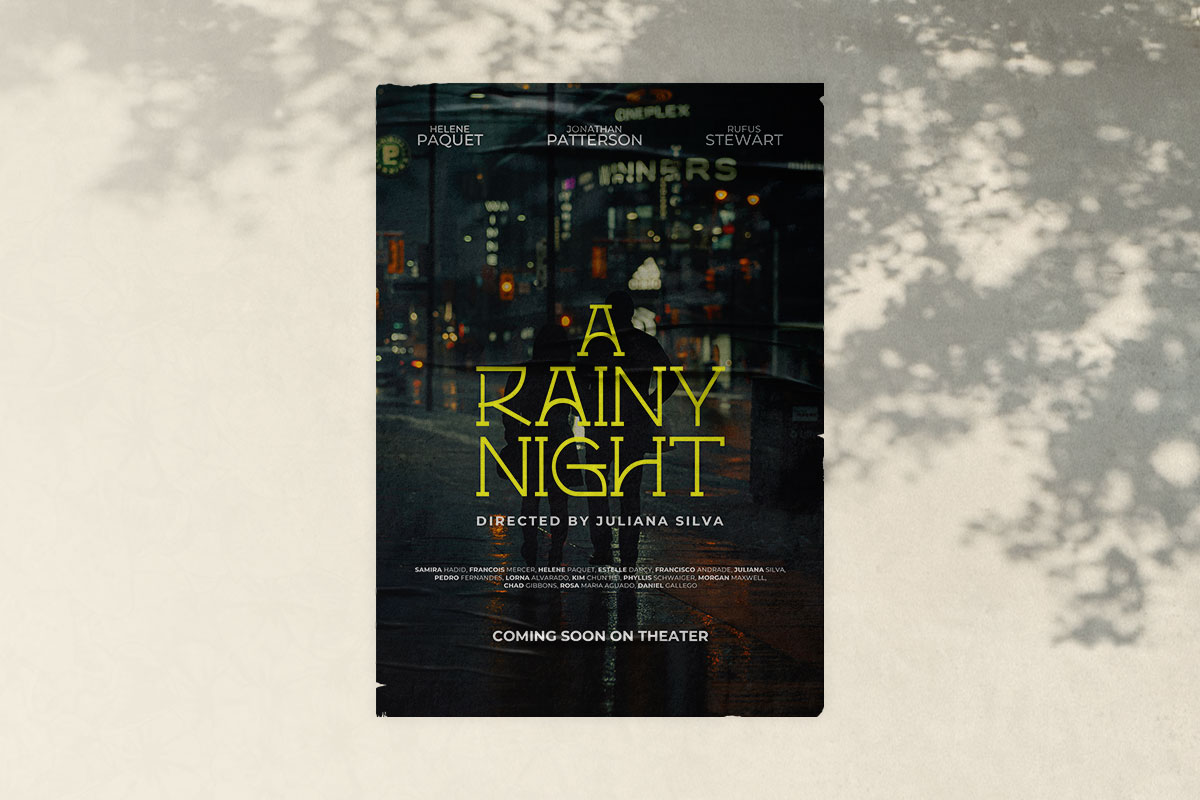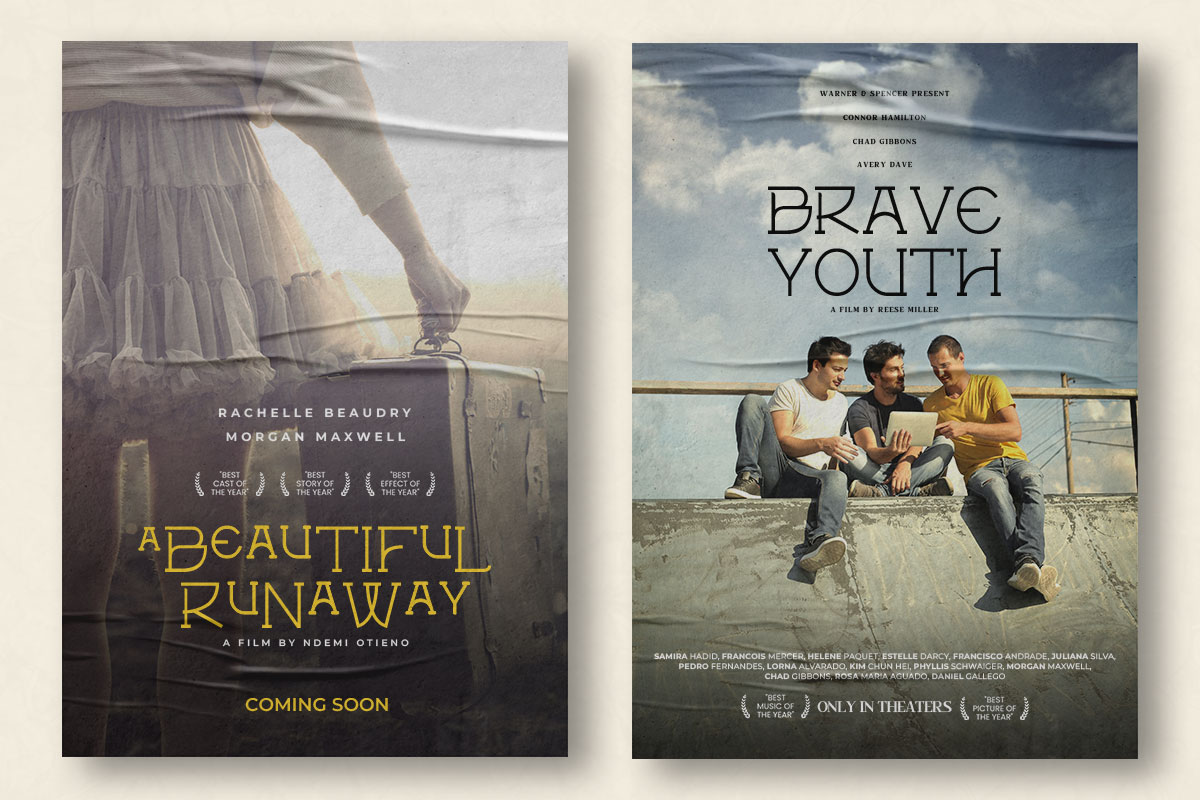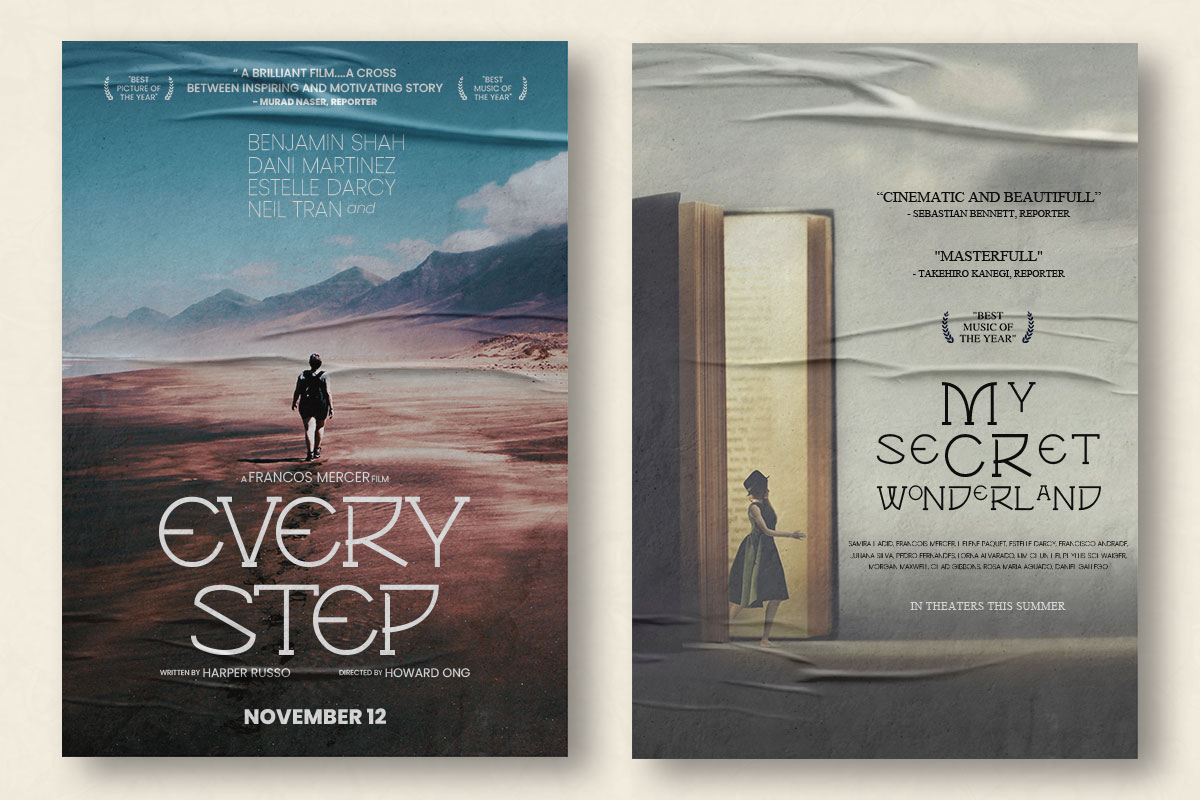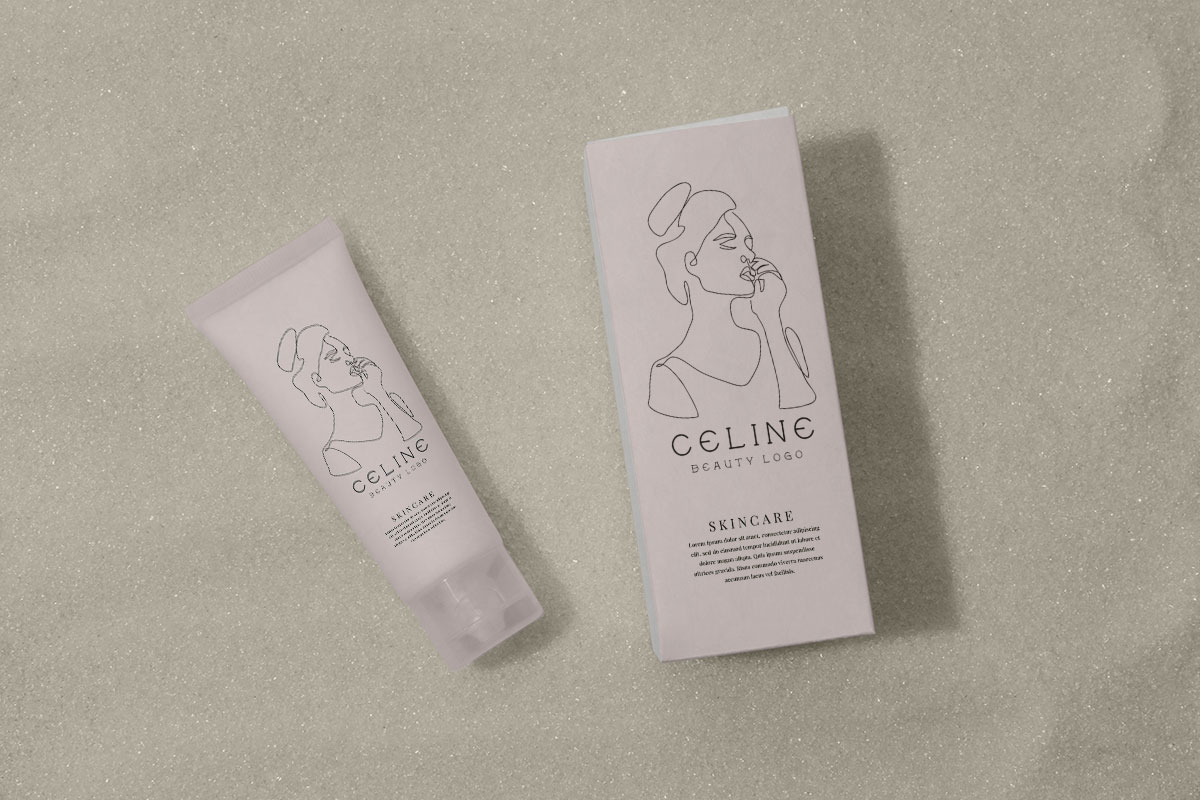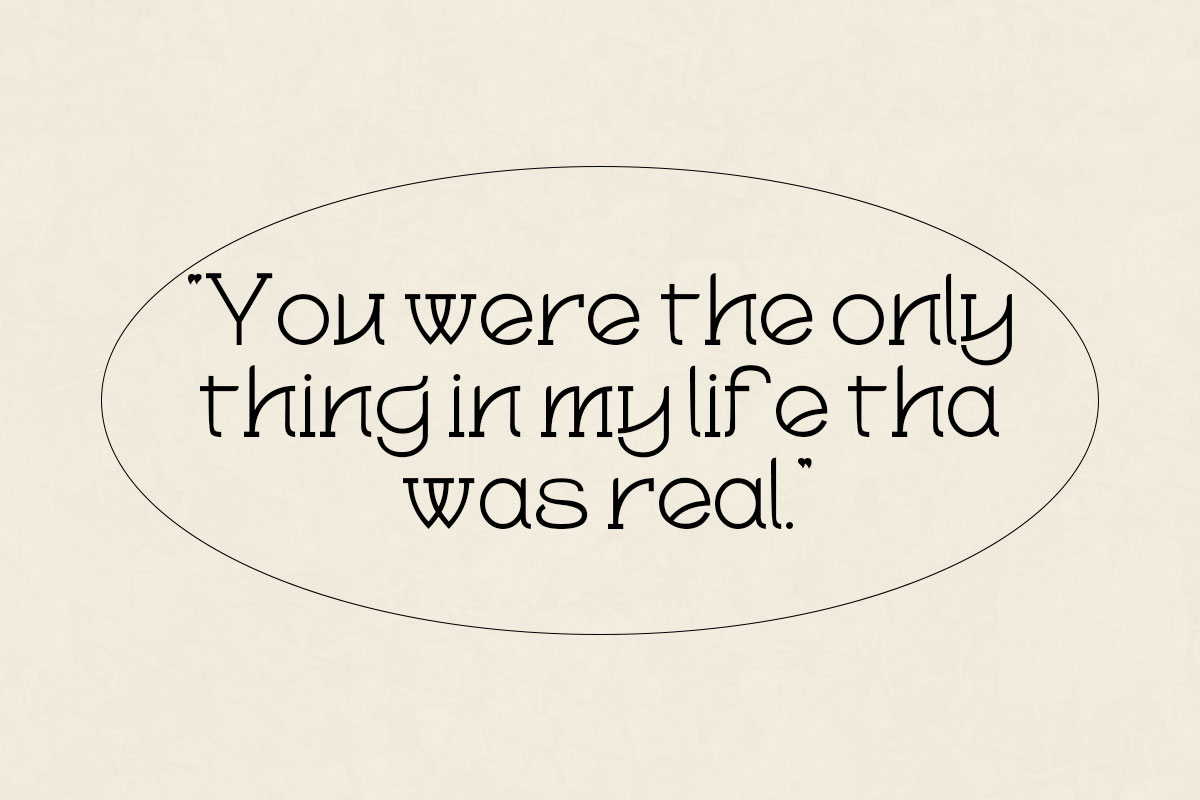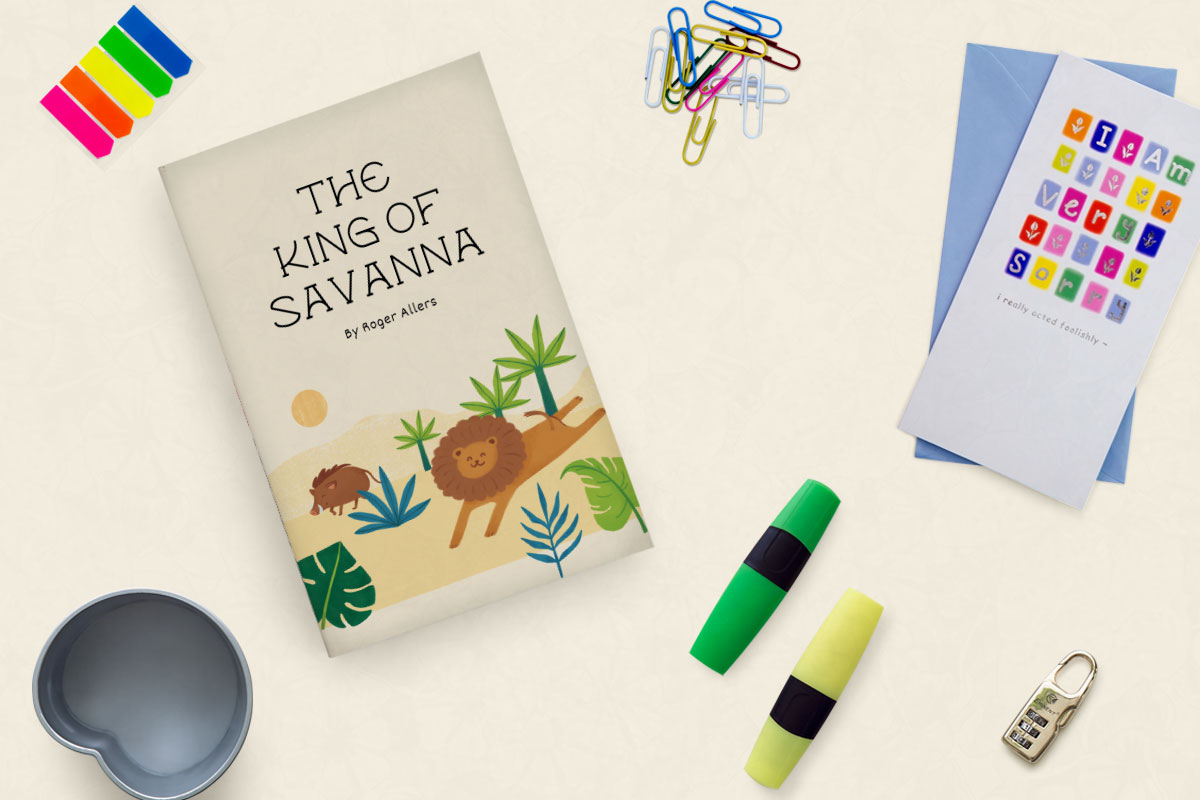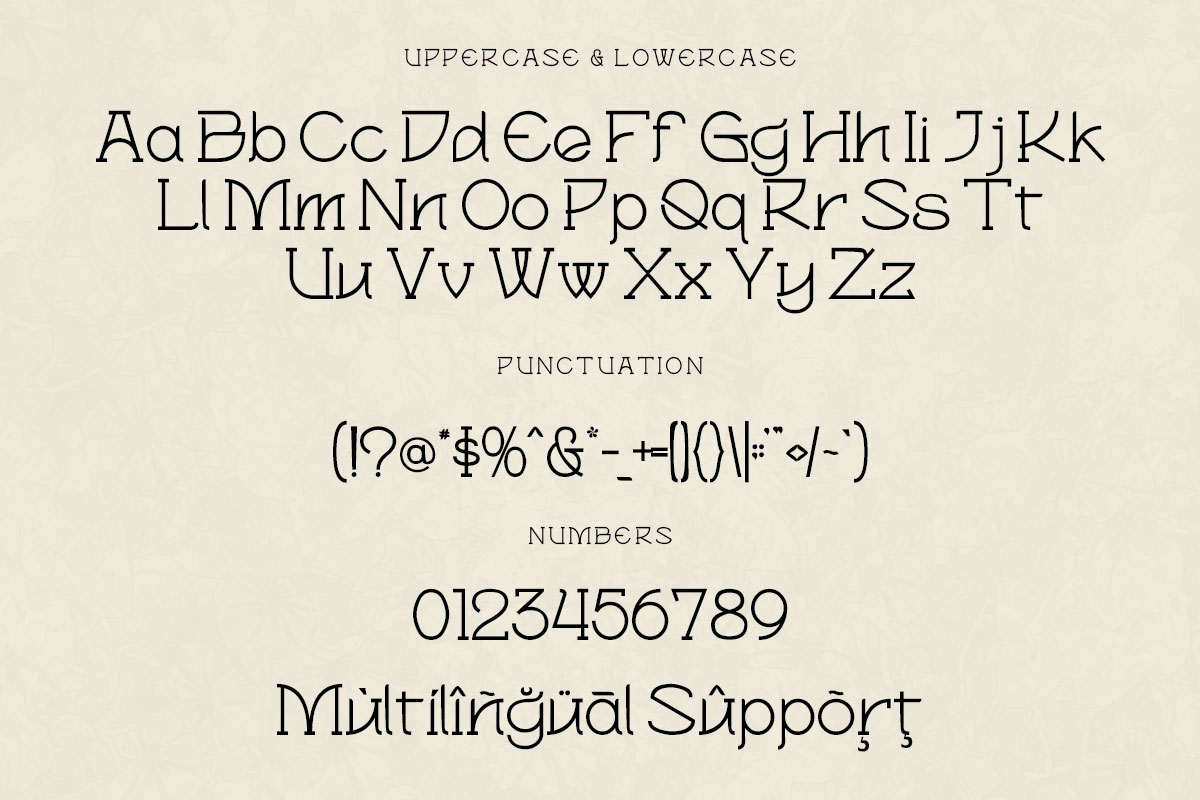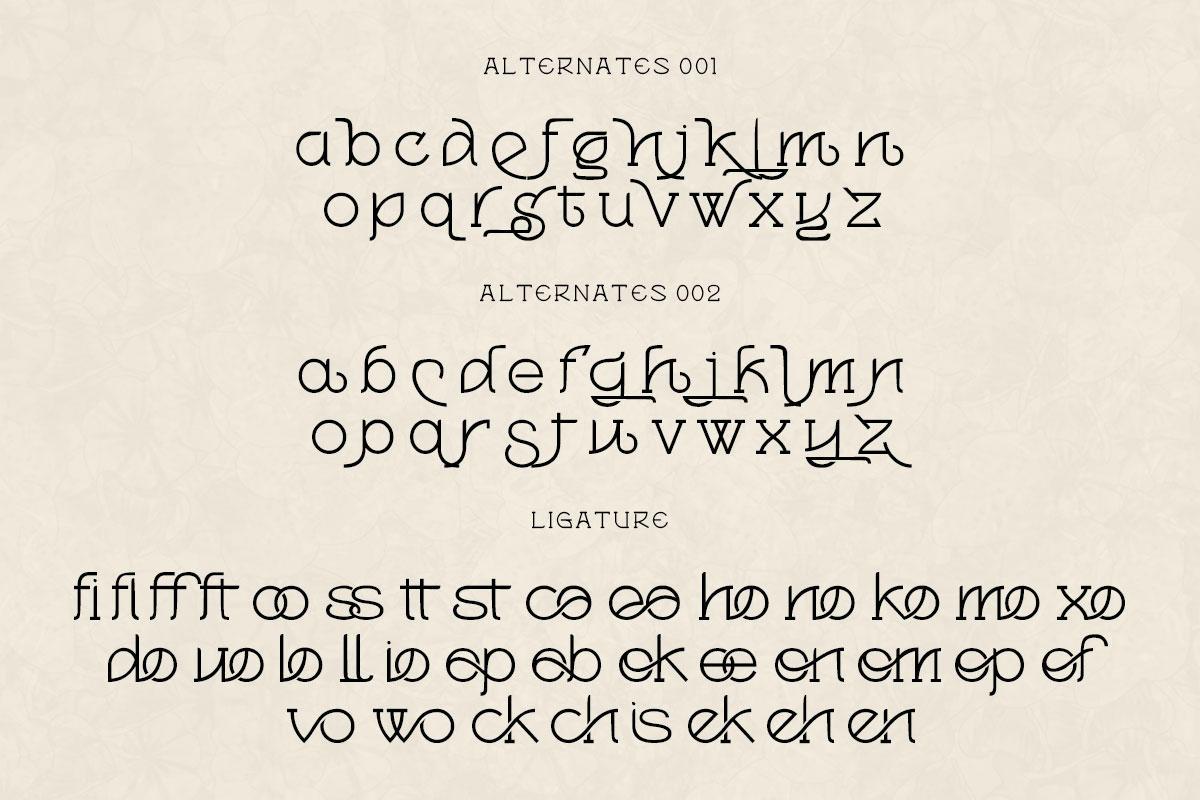
Magnolia Serif Monoline Font displays a new image that is different from the general serif fonts. The serif fonts characteristic that having short feet or arches is still carried by Magnolia, but the legs that accompany only one line with the same length on each side are not completed by excessive curvature. Magnolia has a letter shape that is not large in volume, it is like being written with a pen with a small tip and the resulting writing is flawless. Magnolia has many matches when combined with a product to be traded. Beauty product packaging such as lotion, facial moisturizers, and sunscreen will be harmonious if implemented with this type of font. They don't need to add excessive pictures and ornaments because Magnolia has brought its own identity where the impression of simple yet elegant is very radiating. Magnolia is also on the list of font types that are suitable for promoting films or events. It can be used as a big title on a poster and the title that appears first in an intro video whose job is to attract the audience's attention to the first impression. Storybooks or children's lessons can use this font on the cover page. This is because even though Magnolia is a serif typeface, it can look clear and each letter can be brilliant by children who are even new to reading fluently. Our collection of Serif fonts is compatible for use as Figma fonts, Canva fonts, Freepik Fonts, and Adobe Fonts. They also work as Windows Fonts, and Apple Fonts. For your social media needs, you can use and install fonts in our collection of Serif fonts to use as Instagram Fonts, Facebook Fonts, and Twitter Fonts.